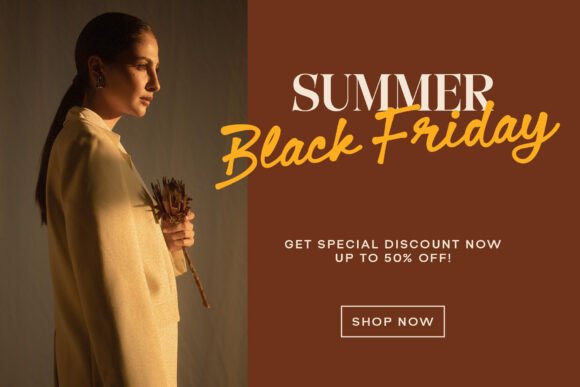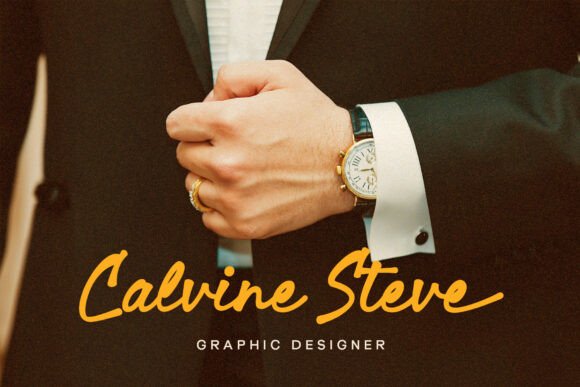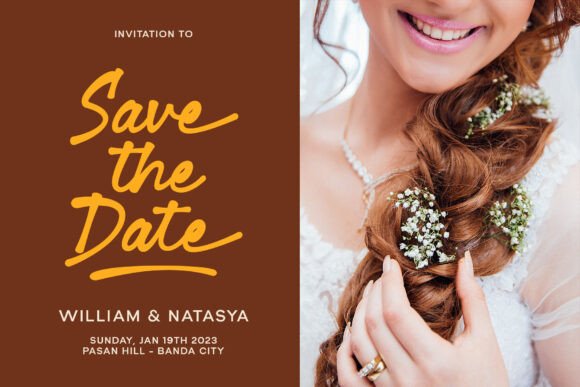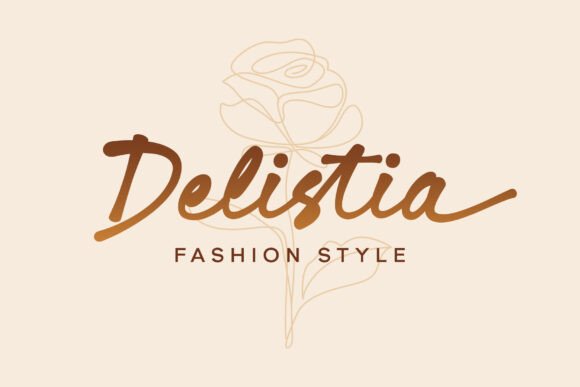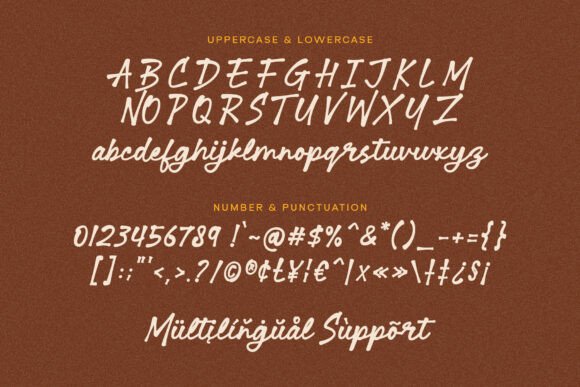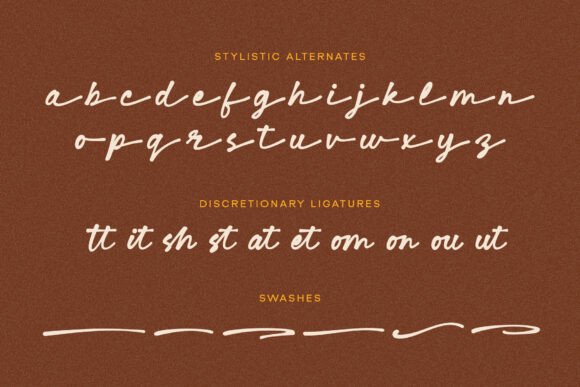
Introduction to Shigetla Font
Have you ever found yourself lost in the world of design, pouring over endless options for the perfect font to bring your creative project to life? That’s exactly where I was, until I stumbled upon the breathtaking Shigetla Font. Its elegant touch and flowing handwritten style instantly captured my heart, and I knew I had to share it with fellow designers.
As a designer, we’re always on the lookout for that one special element to elevate our designs to the next level. And that’s exactly what Shigetla Font offers – a high-quality, timeless style that’s perfect for any creative project. Whether you’re working on a design that requires a transparent background or simply want to add a touch of sophistication, this beautiful font is a valuable resource that’s sure to impress.
Key Features of Shigetla Font
- High-quality design for creative projects, suitable for various applications including graphic design, digital art, and web design.
- Features a unique and modern design style, perfect for designers looking for a distinctive font for their creative project.
- Includes a wide range of characters, including uppercase and lowercase letters, numbers, and special characters.
- Comes in a single weight, ideal for designers who want a clean and simple font for their design resource.
Honest Review: Shigetla Font
As a designer, I’m always on the lookout for high-quality design resources to elevate my creative projects. Recently, I stumbled upon the Shigetla Font, and I’m excited to share my honest review with you.
The Shigetla Font is a free download that boasts a unique and stylish design, making it perfect for modern design projects. One of the standout features of this font is its transparent background, which allows for seamless integration with any design element.
- ✨ Beautifully crafted design that adds a touch of sophistication to any project
- ✨ Perfect for designers working on creative projects that require a unique and stylish font
However, I do have a few reservations about the Shigetla Font. ⚠️ One of the limitations is its limited character set, which may not be suitable for projects that require a wide range of characters.
Overall, I’m impressed with the Shigetla Font, and I would recommend it to designers working on modern and creative projects. While it may not be perfect, its unique design and free download make it an excellent design resource to have in your toolkit.
The Shigetla Font is a high-quality design resource perfect for creative projects that require a unique and stylish touch. This free download offers a transparent background, making it easy to integrate into various design elements.
The Shigetla Font is perfect for:
1. Branding and logos
2. Social media graphics
3. Infographics
4. Advertising materials